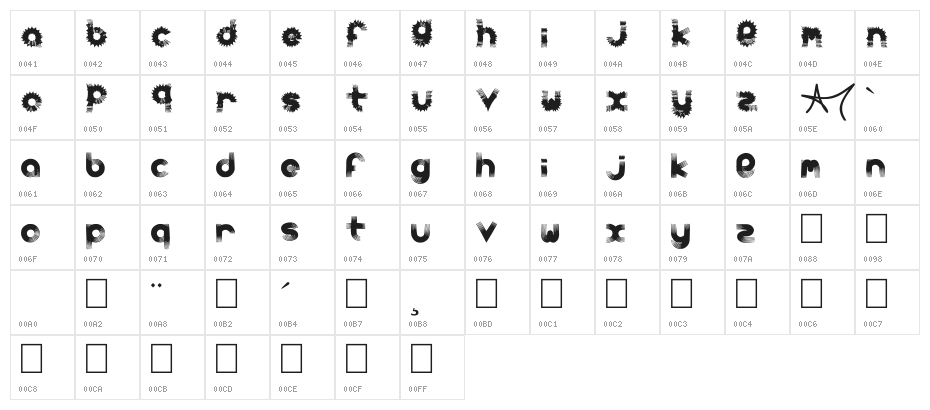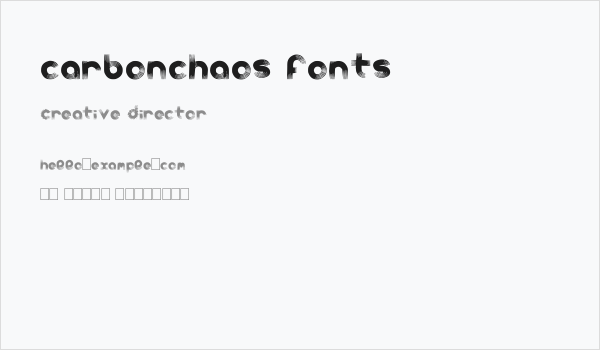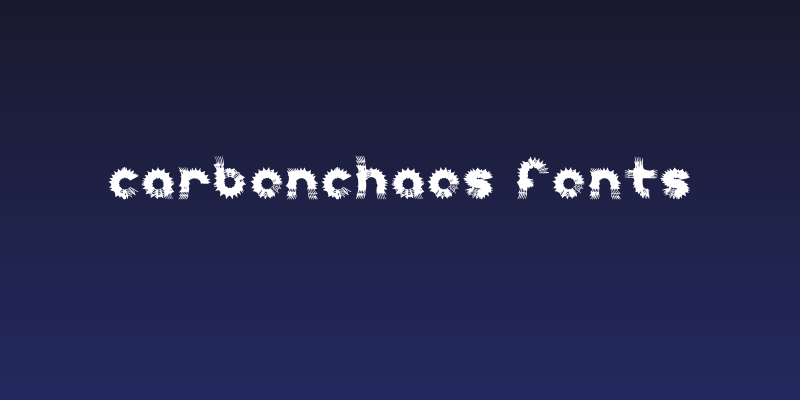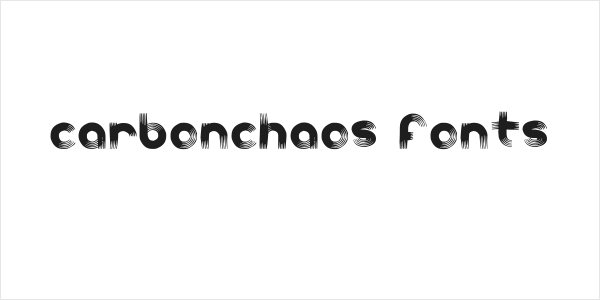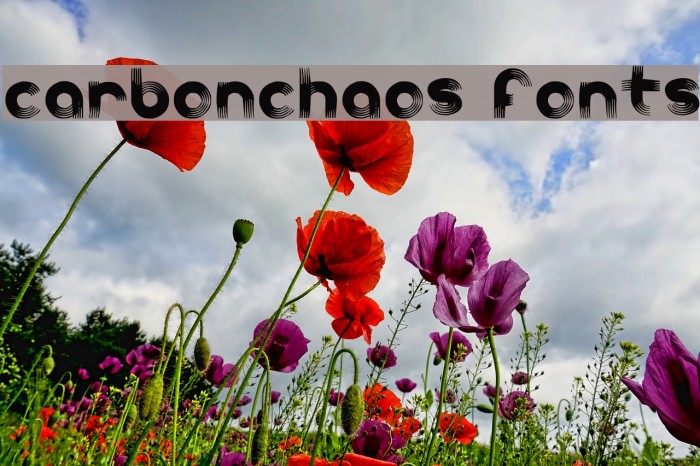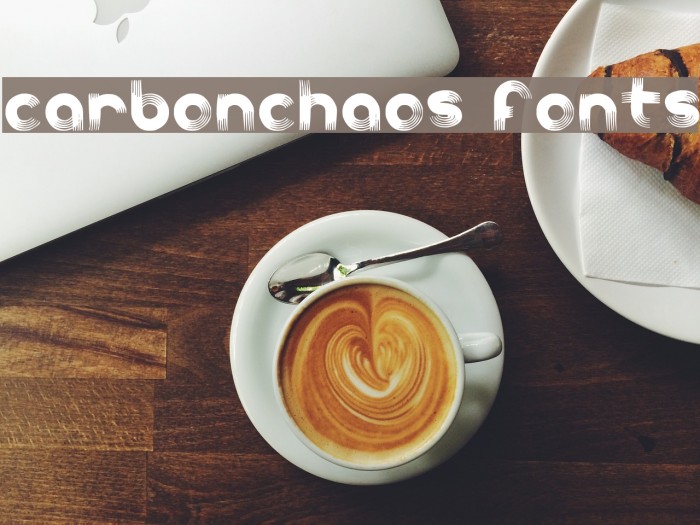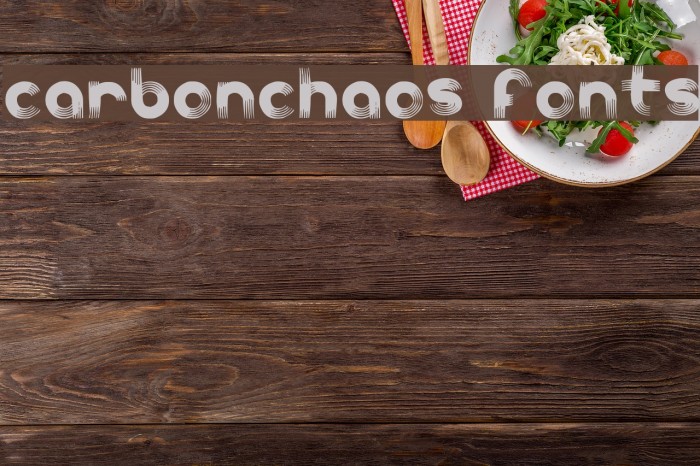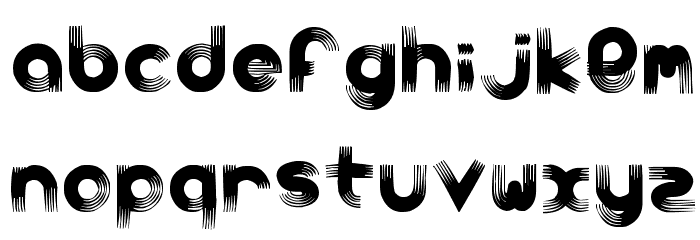
carbonchaos fonts Font
carbonchaos fonts Description
This font features a bold and dynamic design with a chaotic, energetic style. The uppercase and lowercase letters are characterized by sharp, jagged edges and irregular shapes, creating a sense of movement and intensity. The strokes are thick and vary in width, adding to the font's dramatic appearance. The overall look is highly decorative and eye-catching, making it suitable for projects that require a strong visual impact. The font's unique style makes it stand out, with each character having its own distinct personality.
| Proposed Projects | Ideal for album covers, posters, event flyers, and any design needing a bold, impactful statement. |